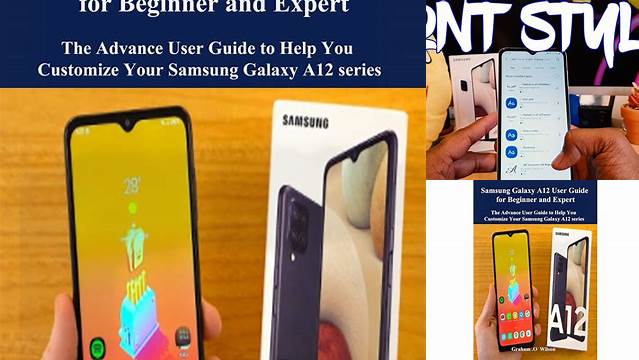
Customize Your Samsung A12: Font Guide
Hey guys! Want to give your Samsung A12 a fresh look? Changing the font is a super easy way to do it! This guide will walk you through everything you need to know about customizing the fonts on your device. Let’s dive in!
Understanding Font Options on Samsung A12
When it comes to samsung a12 fonts, you've got quite a few choices right out of the box. Samsung provides several pre-installed fonts that you can easily switch between to find one that suits your style. Exploring these options is the first step in making your phone truly yours. You can access these settings through the display menu, usually found in your phone's settings app. Take some time to scroll through the list and see what catches your eye. Each font has a slightly different personality, and it's all about finding the one that resonates with you. Don't be afraid to experiment – you can always change it back if you don't like it! Understanding the font options will make you realize the potential in customizing your phone to fit your personality, especially if you're particular about the little details. This simple customization can really enhance your overall user experience, making your device feel more personalized and enjoyable to use every day.
How to Change Font Style on Samsung A12
Changing the samsung a12 fonts style is straightforward. First, head over to your phone's settings. Scroll down until you find the 'Display' option, and tap on it. Inside the display settings, you'll see 'Font size and style.' Tapping on this takes you to a new screen where you can adjust both the font size and the font style. You'll see a list of available fonts to choose from. Simply tap on the font you like, and your phone will instantly apply it. You can preview how the font looks in the text samples provided on the screen. If you're not happy with your choice, just go back and select a different one. Remember, you can also adjust the font size on this screen to make the text bigger or smaller, depending on your preference. This is particularly useful if you have trouble reading smaller text or if you prefer a more prominent display. The ability to change font styles and sizes offers a great level of customization, ensuring that your phone's display is comfortable and visually appealing for you.
Adjusting Font Size on Samsung A12
In addition to changing the font style, adjusting the samsung a12 fonts size is just as important for comfortable viewing. Again, navigate to 'Settings' > 'Display' > 'Font size and style.' Here, you'll find a slider that allows you to increase or decrease the font size. Move the slider to the left to make the font smaller and to the right to make it larger. As you adjust the slider, the text samples on the screen will update in real-time, giving you an immediate preview of the new font size. This makes it easy to find the perfect size that suits your vision. Many users find that the default font size is either too small or too large, so this adjustment feature is incredibly useful. Experiment with different sizes until you find the one that's most comfortable for your eyes. Keep in mind that a larger font size can make the text easier to read, while a smaller font size allows more content to fit on the screen. Finding the right balance is key to a comfortable and efficient user experience. Also, remember that some apps have their own individual font size settings, so you might need to adjust those separately for a consistent look across all your applications.
Downloading New Fonts for Samsung A12
Using Custom Fonts on Samsung A12
Troubleshooting Font Issues on Samsung A12
Sometimes, you might encounter issues with samsung a12 fonts, such as fonts not displaying correctly or the font settings not working. If this happens, there are a few troubleshooting steps you can try. First, restart your phone. This can often resolve minor software glitches that may be causing the problem. If that doesn't work, try clearing the cache and data of the 'Settings' app. To do this, go to 'Settings' > 'Apps' > 'Settings' > 'Storage' and tap on 'Clear cache' and 'Clear data.' Keep in mind that clearing the data will reset your settings to their default values, so you'll need to reconfigure them. If you're still having issues, check for software updates. Samsung regularly releases updates that include bug fixes and improvements, so installing the latest update might resolve the problem. If none of these steps work, you can try performing a factory reset. This will erase all the data on your phone, so be sure to back up your important files first. To perform a factory reset, go to 'Settings' > 'General management' > 'Reset' > 'Factory data reset.' As a last resort, you can contact Samsung support for further assistance. They may be able to provide more specific troubleshooting steps or arrange for a repair if necessary. Troubleshooting font issues might seem daunting, but with a systematic approach, you can usually resolve the problem and get your fonts working correctly again.
Accessibility and Font Options
Accessibility is a crucial aspect of user experience, and samsung a12 fonts options play a significant role in it. Samsung provides several accessibility features that can help users with visual impairments to use their phones more easily. In addition to adjusting the font size, you can also enable high contrast fonts, which makes the text stand out more against the background. This can be particularly helpful for users with low vision. To enable high contrast fonts, go to 'Settings' > 'Accessibility' > 'Visibility enhancements' and toggle on 'High contrast fonts.' You can also adjust the color inversion, which reverses the colors on the screen, making it easier to read for some users. Another useful feature is the ability to zoom in on the screen. You can enable magnification gestures in the accessibility settings to zoom in on any part of the screen by triple-tapping it. These accessibility features can greatly improve the usability of your phone for users with visual impairments, making it easier to read text, navigate the interface, and interact with apps. Samsung is committed to providing inclusive technology that caters to the needs of all users, and these accessibility features are a testament to that commitment. By understanding and utilizing these options, you can make your phone more accessible and user-friendly for everyone.
Default Font on Samsung A12
The default samsung a12 fonts on the Samsung A12 is typically 'SamsungOne.' This font is designed to be clean, readable, and visually appealing, making it a good choice for general use. It's a sans-serif font, which means it doesn't have the small decorative strokes (serifs) that are found on some other fonts. Sans-serif fonts are often considered to be more modern and easier to read on digital screens. SamsungOne is used throughout the phone's interface, including the home screen, menus, and apps. It's designed to provide a consistent and cohesive visual experience across the entire device. While SamsungOne is a perfectly good font, many users prefer to customize their phone with a different font that better suits their personal taste. That's why Samsung provides the ability to change the font style in the display settings. If you're not happy with the default font, you can easily switch to one of the other pre-installed fonts or download a new font from the Galaxy Store. Keep in mind that the default font may vary slightly depending on the region and software version of your phone. However, SamsungOne is the most common default font on Samsung devices. Understanding the default font and its characteristics can help you appreciate the design choices that Samsung has made and make informed decisions about customizing your phone's display.
Best Fonts for Samsung A12
Choosing the 'best' samsung a12 fonts is subjective and depends entirely on your personal preferences. However, some fonts are generally considered to be more readable and visually appealing than others. For example, 'Roboto' is a popular sans-serif font that is known for its clean lines and readability. It's a good choice if you want a font that is easy on the eyes and doesn't distract from the content. 'Google Sans' is another popular option that is similar to Roboto but has a slightly more modern and stylish look. If you prefer a more elegant and sophisticated font, you might consider 'Helvetica Neue.' This font is widely used in graphic design and is known for its timeless appeal. For a playful and whimsical font, you could try 'Comic Sans MS.' However, be warned that this font is often considered to be unprofessional and should be used with caution. Ultimately, the best font for you is the one that you find most comfortable and enjoyable to read. Experiment with different fonts and see which one you like best. You can also ask your friends and family for their opinions. Keep in mind that the best font for one person may not be the best font for another. It's all about finding the right fit for your individual preferences and needs. Consider the overall aesthetic you're aiming for and choose a font that complements it. Whether you prefer a classic, modern, or playful look, there's a font out there that's perfect for you.
Font Size and Readability on Samsung A12
Finding the right samsung a12 fonts size is crucial for comfortable reading on your Samsung A12. If the font is too small, you'll strain your eyes trying to read it. If the font is too large, you won't be able to fit as much text on the screen, which can be inconvenient. The ideal font size depends on a variety of factors, including your vision, the size of your phone's screen, and the distance you hold the phone from your eyes. As a general rule, you should choose a font size that is large enough to read comfortably without having to squint or strain your eyes. You can adjust the font size in the display settings of your phone. Experiment with different sizes until you find the one that works best for you. Keep in mind that you can also adjust the font size in individual apps. For example, many email apps allow you to increase or decrease the font size of the messages. If you're having trouble reading text on your phone, try increasing the font size. This can make a big difference in your comfort and productivity. Also, consider enabling accessibility features like high contrast fonts or color inversion, which can further improve readability. By optimizing the font size and other display settings, you can create a more comfortable and enjoyable reading experience on your Samsung A12.
Changing Font for Specific Apps
While you can change the system-wide samsung a12 fonts on your Samsung A12, some apps have their own font settings that override the system settings. This means that you can customize the font for specific apps without affecting the font in other apps. For example, many email apps allow you to choose a different font for your messages. To change the font in a specific app, open the app and look for the font settings. These settings are usually found in the app's settings menu. The location of the settings may vary depending on the app. Once you find the font settings, you can choose a different font from the available options. Keep in mind that not all apps allow you to change the font. Some apps use the system font exclusively. If you can't find any font settings in an app, it's likely that you can't change the font for that app. Customizing the font for specific apps can be useful if you want to use a different font for different purposes. For example, you might want to use a more formal font for email and a more casual font for social media. By taking advantage of the font settings in individual apps, you can create a more personalized and customized experience on your Samsung A12.
Resetting Font to Default on Samsung A12
If you've changed your samsung a12 fonts and want to go back to the default font, it's easy to do. Simply go to 'Settings' > 'Display' > 'Font size and style.' In the font style section, you should see the font that you're currently using. To reset to the default font, look for an option that says 'Default' or 'SamsungOne' (the default font on most Samsung devices). Tap on this option, and your phone will revert to the default font. You can also reset the font size to the default size on this screen. Just move the font size slider back to the middle position. Resetting the font to default can be useful if you're not happy with the font that you're currently using or if you're giving your phone to someone else. It's also a good way to troubleshoot font issues. If you're experiencing problems with the font on your phone, resetting to default can help you determine whether the problem is caused by a custom font or by something else. The process is straightforward and can be completed in just a few seconds. By resetting the font to default, you can ensure that your phone is using the font that it was originally designed to use, which can often improve readability and overall user experience.
Font Permissions and Security
When downloading and installing new samsung a12 fonts, it's important to be aware of font permissions and security. Fonts are essentially software, and like any software, they can potentially contain malicious code. That's why it's important to only download fonts from trusted sources, such as the Galaxy Store. The Galaxy Store has a vetting process for apps and fonts, which helps to ensure that they are safe and secure. When you install a font, the font may request certain permissions. Be sure to review these permissions carefully before granting them. If a font requests permissions that seem unnecessary or suspicious, it's best not to install it. For example, a font shouldn't need access to your contacts or location. If you're concerned about the security of a font, you can scan it with a virus scanner before installing it. There are many free virus scanners available for Android devices. By taking these precautions, you can help to protect your phone from malicious fonts. Keep in mind that even fonts from trusted sources can sometimes have vulnerabilities, so it's always a good idea to be cautious. By being aware of font permissions and security, you can enjoy the benefits of custom fonts without putting your phone at risk.
Rooting and Custom Fonts
As mentioned earlier, using completely custom samsung a12 fonts (fonts from outside the Galaxy Store) typically requires rooting your device. Rooting gives you more control over your phone's operating system, allowing you to install fonts from any source. However, rooting also comes with risks. It can void your warranty, make your phone less secure, and potentially brick your device if done incorrectly. If you're not comfortable with the technical aspects of rooting, it's best to avoid it. If you do decide to root your phone, be sure to follow the instructions carefully and back up your data first. There are many online guides and tutorials that can help you root your Samsung A12. Once you've rooted your phone, you can use a font installer app to install custom fonts. There are many font installer apps available on the Google Play Store. However, be sure to choose a reputable app that has good reviews. Keep in mind that custom fonts may not always display correctly on your device, and they may not be compatible with all apps. It's also important to respect the copyright of the fonts you use. Only use fonts that you have the right to use, whether they're free for commercial use or you've purchased a license. While rooting can give you more freedom to customize your phone, it's important to weigh the risks and benefits carefully before proceeding.
Font Styles and Branding
For businesses, samsung a12 fonts can play a crucial role in branding. Using a consistent font across all your marketing materials can help to create a strong brand identity. When choosing a font for your brand, consider the overall message you want to convey. A professional and reliable brand might choose a classic and conservative font, while a creative and innovative brand might choose a more modern and unique font. You can use the same font on your website, social media profiles, and printed materials. This will help to create a cohesive and recognizable brand image. If you have a Samsung A12 that you use for business purposes, you can customize the font to match your brand's font. This will help to reinforce your brand identity every time you use your phone. You can also encourage your employees to use the same font on their phones. This will help to create a consistent brand experience for your customers. Choosing the right font is an important part of branding. By carefully considering your brand's message and target audience, you can choose a font that helps to communicate your brand's values and personality. Remember, consistency is key when it comes to branding. Using the same font across all your marketing materials will help to create a strong and recognizable brand identity.
Font Licensing and Copyright
When using samsung a12 fonts, it's important to be aware of font licensing and copyright. Fonts are intellectual property, and they are protected by copyright law. This means that you can't just use any font you find without permission. Most fonts come with a license that specifies how you can use the font. Some fonts are free for personal use but require a commercial license for business use. Other fonts are completely free for any use. Before using a font, be sure to read the license carefully. Make sure that you understand the terms of the license and that you are complying with them. If you're not sure whether you're allowed to use a font, it's best to err on the side of caution and contact the font's creator or distributor. Using a font without a proper license can result in legal penalties. You could be sued for copyright infringement and forced to pay damages. It's also important to respect the copyright of the fonts you use. Don't copy or distribute fonts without permission. By being aware of font licensing and copyright, you can avoid legal problems and ensure that you're using fonts ethically. Remember, fonts are the creative work of designers, and they deserve to be compensated for their work. By purchasing fonts or using free fonts with proper attribution, you can support the font design community and help to ensure that they continue to create beautiful and useful fonts.
Font Pairing Tips
Choosing the right samsung a12 fonts to use together, or font pairing, can greatly enhance the visual appeal of your phone's display. Here are a few tips to help you create harmonious font combinations: Contrast is Key: Pair a bold font with a lighter one. For example, use a bold font for headings and a lighter font for body text. This creates visual interest and helps to distinguish different elements on the screen.
Consider Serif and Sans-Serif Combinations: A classic pairing is a serif font for headings and a sans-serif font for body text, or vice versa. Serif fonts have small decorative strokes at the ends of the letters, while sans-serif fonts do not. This combination provides a balance of elegance and readability.
Limit the Number of Fonts: As a general rule, stick to two or three fonts at most. Using too many fonts can make your display look cluttered and confusing.
Use Font Families: If possible, choose fonts from the same font family. Font families are sets of fonts that are designed to work well together. This ensures a consistent and harmonious look.
Test Readability: Before settling on a font pairing, test it out by reading a long passage of text. Make sure that the fonts are easy to read and don't cause eye strain.
Draw Inspiration from Design Resources: Look at websites, magazines, and other design resources to get inspiration for font pairings. Pay attention to which fonts are used together and how they create a certain mood or style.
By following these tips, you can create font pairings that are both visually appealing and easy to read. Experiment with different combinations and find what works best for you.
Font Resources Online
There are many online resources where you can find free and paid samsung a12 fonts. Here are a few of the most popular:
- Google Fonts: A vast library of open-source fonts that are free for commercial use.
- Adobe Fonts: A subscription-based service that offers access to thousands of high-quality fonts.
- Font Squirrel: A curated collection of free fonts that are licensed for commercial use.
- MyFonts: A marketplace where you can purchase fonts from independent designers.
- Creative Market: A marketplace that offers a variety of design assets, including fonts.
When downloading fonts from online resources, be sure to check the license carefully to ensure that you are allowed to use the font for your intended purpose. It's also a good idea to scan the font with a virus scanner before installing it to protect your phone from malicious code. In addition to these resources, there are many blogs and articles online that offer tips and advice on choosing and using fonts. These resources can be a great way to learn more about typography and improve your design skills. Remember to always respect the copyright of the fonts you use and to give credit to the font designers when appropriate.
Creating Your Own Font
If you're feeling creative, you can even try creating your own samsung a12 fonts. There are many font creation tools available, both free and paid. Here are a few of the most popular:
- FontForge: A free and open-source font editor.
- Glyphs: A professional font editor for macOS.
- RoboFont: A Python-based font editor.
- Calligraphr: A web-based tool that allows you to create fonts from your handwriting.
Creating your own font can be a challenging but rewarding process. It requires a good understanding of typography and design principles. However, with the right tools and patience, you can create a unique font that reflects your personal style. Once you've created your font, you can install it on your Samsung A12 and use it in your favorite apps. You can also share your font with others online. Creating your own font is a great way to express your creativity and to add a personal touch to your phone's display. However, be sure to respect the copyright of any existing fonts that you use as inspiration. It's also important to test your font thoroughly to ensure that it is readable and works well in different sizes and contexts. Creating a high-quality font takes time and effort, but the results can be well worth it.
Dynamic Fonts and Animation
While static samsung a12 fonts are the norm, dynamic fonts and animation can add a whole new level of visual interest to your phone's display. Dynamic fonts change their appearance based on certain conditions, such as the time of day or the battery level. Animated fonts, on the other hand, incorporate motion into the letters themselves. These types of fonts are more complex to create and use, but they can be very effective in certain contexts. For example, you could use a dynamic font to change the color of the clock on your home screen based on the time of day. Or you could use an animated font to create a more engaging loading screen. While dynamic and animated fonts are not widely supported on Android devices, there are some apps and tools that allow you to use them. You can also create your own dynamic and animated fonts using specialized software. However, be aware that using these types of fonts can consume more battery power and may not be compatible with all apps. If you're looking to add a unique and eye-catching touch to your phone's display, dynamic and animated fonts are worth exploring. Just be sure to test them thoroughly to ensure that they work well on your device and don't cause any performance issues. Also, remember that less is often more. Use dynamic and animated fonts sparingly to avoid overwhelming the user.
Font Tips for Social Media
When using samsung a12 fonts on social media, it's important to choose fonts that are both visually appealing and easy to read on small screens. Here are a few tips to help you make the right choices:
- Use clear and legible fonts: Avoid overly decorative or stylized fonts that can be difficult to read.
- Consider your target audience: Choose fonts that are appropriate for your brand and your target audience. A playful font might be suitable for a younger audience, while a more formal font might be better for a professional audience.
- Maintain consistency: Use the same fonts across all your social media profiles to create a consistent brand identity.
- Use fonts to highlight important information: Use bold or larger fonts to emphasize key messages.
- Test your fonts on different devices: Make sure that your fonts look good on both desktop and mobile devices.
In addition to these tips, it's also important to be aware of the character limits on social media platforms. Choose fonts that allow you to convey your message effectively within the allotted space. You can also use emojis and other visual elements to supplement your text and make your posts more engaging. Remember, social media is all about grabbing attention and communicating your message quickly and effectively. By choosing the right fonts and using them strategically, you can make your social media posts stand out from the crowd.
Font and UI Design Consistency
Maintaining samsung a12 fonts and UI (User Interface) design consistency is crucial for creating a polished and professional user experience on your Samsung A12. Here's why it matters and how to achieve it:
- Brand Identity: A consistent font and UI design reinforces your brand identity, making your app or website instantly recognizable.
- User Experience: Consistency makes it easier for users to navigate and understand your interface. They'll quickly learn where to find things and how to interact with your app or website.
- Professionalism: A consistent design conveys professionalism and attention to detail, building trust with your users.
How to Achieve Consistency:
- Create a Style Guide: Develop a style guide that outlines your font choices, color palette, and other design elements. This will serve as a reference point for all your design efforts.
- Use a Design System: A design system is a collection of reusable components and patterns that can be used to build consistent interfaces. Many design systems include pre-defined font styles and sizes.
- Follow Platform Guidelines: Adhere to the platform-specific design guidelines (e.g., Android's Material Design) to ensure that your app or website looks and feels native.
- Use Templates: Use templates to ensure that all your screens and pages have a consistent layout and design.
- Test Thoroughly: Test your design on different devices and screen sizes to ensure that it looks good and functions properly.
By following these guidelines, you can create a consistent and professional user experience that enhances your brand identity and builds trust with your users.
The Future of Fonts on Mobile
The future of samsung a12 fonts on mobile devices is likely to be shaped by several key trends:
- Variable Fonts: Variable fonts are a new font technology that allows for a single font file to contain multiple variations of a font, such as different weights, widths, and styles. This can significantly reduce file sizes and improve performance.
- Color Fonts: Color fonts allow for the embedding of color information directly into the font file, enabling the creation of more visually rich and expressive typography.
- AI-Powered Font Generation: Artificial intelligence is being used to generate new fonts automatically. This could lead to a proliferation of unique and innovative fonts.
- Personalized Fonts: Mobile devices may be able to adapt the font to the user's individual preferences and reading habits. For example, the font size and weight could be adjusted based on the user's vision and reading speed.
- Dynamic Fonts: Dynamic fonts could change their appearance based on the context in which they are used. For example, the font could change color or size based on the time of day or the user's location.
These trends suggest that the future of fonts on mobile devices will be characterized by greater flexibility, expressiveness, and personalization. As mobile devices become more powerful and sophisticated, we can expect to see even more innovation in the field of typography.
Conclusion: Making the Most of Your Samsung A12 Fonts
So there you have it! Everything you need to know about samsung a12 fonts to customize your device and make it truly yours. From understanding the basic options to downloading new fonts and troubleshooting common issues, you're now equipped to take control of your phone's display and create a visual experience that you'll love. Experiment with different fonts, sizes, and styles until you find the perfect combination that suits your personal taste and enhances your readability. Don't be afraid to try new things and have fun with it! Customizing your fonts is a simple yet effective way to personalize your Samsung A12 and make it a reflection of your unique personality. Remember, the key is to find fonts that are not only visually appealing but also easy to read and comfortable for your eyes. By following the tips and guidelines in this article, you can create a display that is both stylish and functional. So go ahead and unleash your creativity – the possibilities are endless! With a little bit of effort, you can transform your Samsung A12 into a truly personalized device that you'll enjoy using every day. Happy customizing!